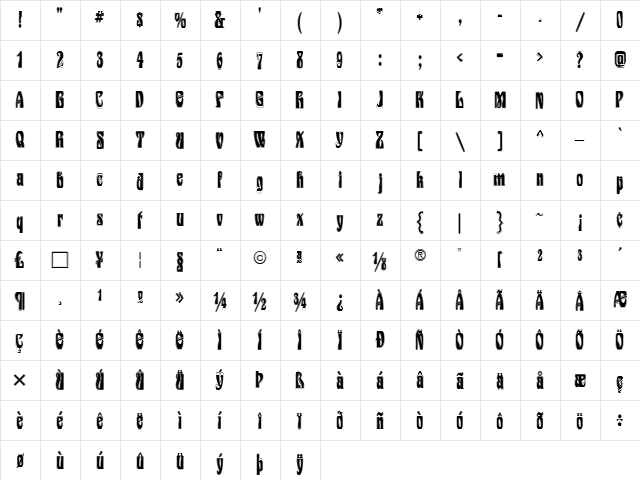
Epoque Inline Regular
Design Context for Epoque Inline Typeface
Epoque Inline is built around its visual character rather than neutral utility — its distinctive forms are designed to make an impression at display sizes.
Font Pairing: Pair with a clean neutral sans-serif for body copy to let Epoque Inline's character lead without overwhelming the composition.
Pro Tip: Treat Epoque Inline as the centrepiece of your typographic hierarchy. One strong heading set in a decorative face can carry an entire layout.